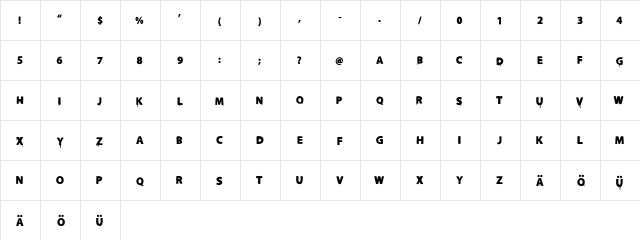
Slutotronic Bold
Design Context for Slutotronic Typeface
Slutotronic is a composed and adaptable typeface that performs quietly and consistently across a wide range of design contexts. The heavy weight commands attention and anchors typographic hierarchies.